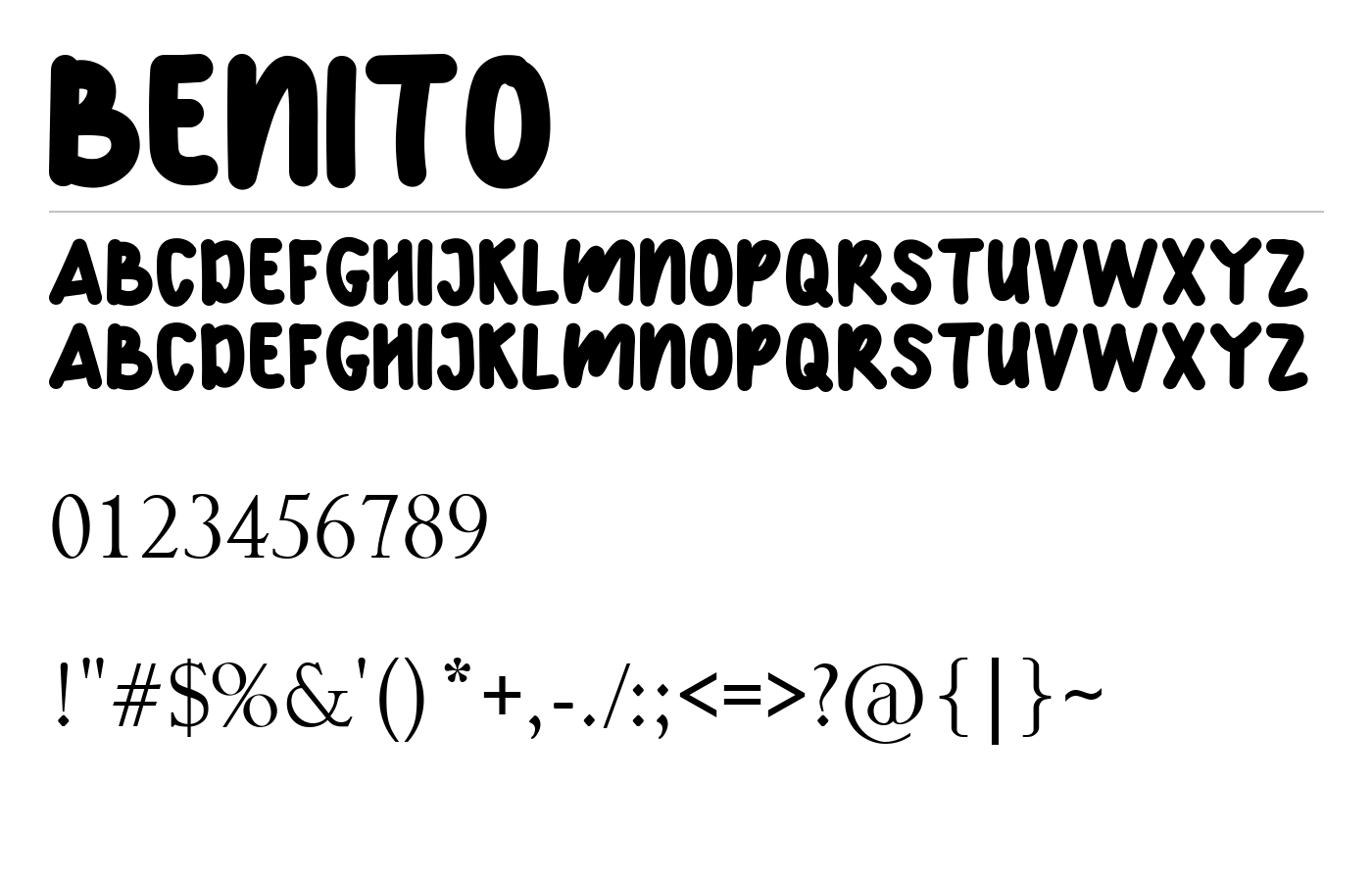
BENITO is a playful and bold sans serif font with rounded, hand-drawn letterforms that bring a friendly and approachable vibe. Its chunky weight and casual style make it perfect for creative projects, children’s materials, or branding that seeks a fun and informal personality. The font shines in headlines, logos, and packaging where a lively and memorable impact is needed.
BENITO Font
About BENITO Font
| Font family | BENITO Font |
| Designer | Nissa Nana |